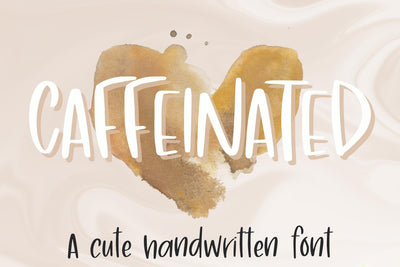
Caffeinated, A Fun, High Energy Handwritten Font
This cute handwritten font is perfect for fun logos, greeting cards, t-shirt design, stickers, social media, and any craft or project for that hand-made look.